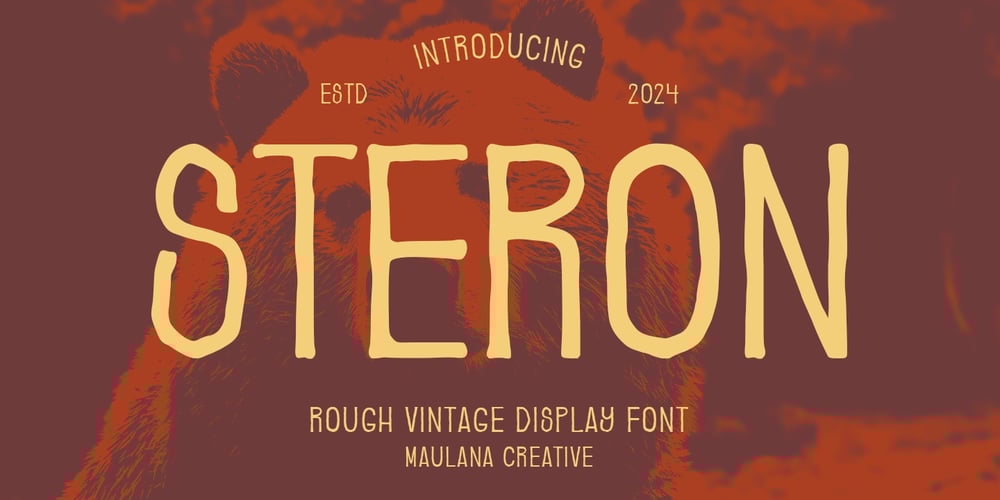
MC Steron
MC Steron font
MC Steron Font Family was designed by Gilang Maulana and published by Maulana Creative. MC Steron contains 1 styles and family package options. Steron is a rough vintage display sans font. With smooth stroke, fun character with a bit of ligatures. To give you an extra creative work. Steron font support multilingual more than 100+ language. This font is good for logo design, Social media, Movie Titles, Books Titles, a short text even a long text letter and good for your secondary text font with sans or serif. Make a stunning work with Steron font.Cheers, Maulana Creative